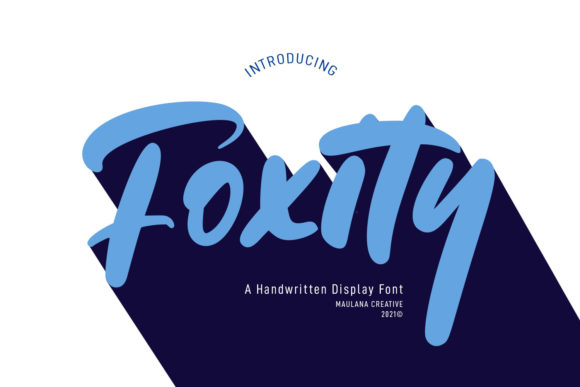
Welcome to the enchanting realm of Foxity Font, where creativity and imagination intertwine to produce a display font that's not just visually appealing, but a captivating journey for the eyes. Born from the creative brilliance of Maulana Creative, Foxity is a font that embodies playfulness and authenticity, making it the perfect companion for children's activities and school projects. Dive into a world where learning meets fun, and where every letter dances with personality.
Foxity Font is not just a collection of characters; it's a gateway to a world of imagination, where words and ideas come alive with vibrant energy. Its playful and authentic style captivates the hearts of children, drawing them into a world of wonder and discovery. Whether it's a school project that needs a touch of whimsy or a children's activity that seeks to ignite creativity, Foxity Font is the perfect choice.
The beauty of Foxity Font lies in its ability to transform the ordinary into the extraordinary. Its carefully crafted characters, each a masterpiece of digital artistry, dance across the screen with grace and charm. The font's inherent playfulness sparks imagination and invites children to explore the boundless realms of creativity. It's a font that not only teaches but also inspires, encouraging young minds to think outside the box and express themselves in unique and captivating ways.
With Foxity Font, learning becomes an adventure, a journey filled with laughter, exploration, and imagination. Its friendly and approachable nature creates a welcoming environment for children, encouraging them to embrace their creativity and explore the endless possibilities that await them. Teachers and educators will find Foxity Font to be an invaluable tool, helping them transform lessons into captivating experiences that engage students and leave a lasting impression.
So, embark on this creative journey with Foxity Font, and discover a world where learning and fun go hand in hand. Let your imagination soar, and allow the playful spirit of Foxity Font to ignite the spark of creativity within you. Transform your projects into masterpieces and create memories that will last a lifetime. The world of Foxity Font awaits, ready to unleash the magic of creativity.